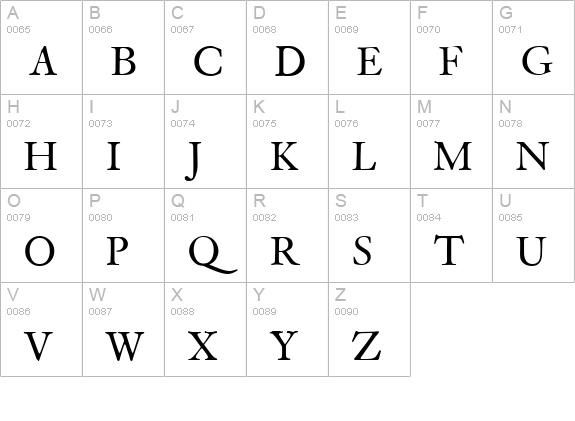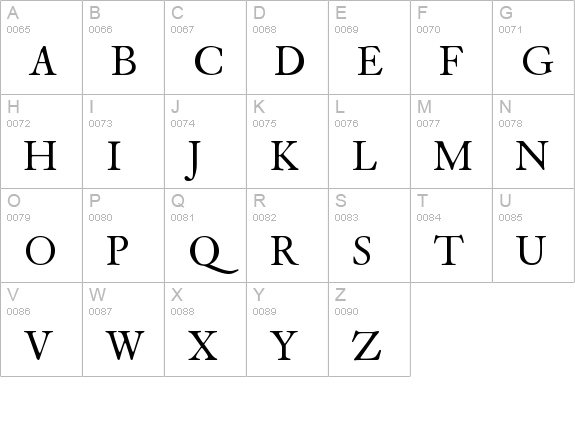
VanityBook-Regular Font Details
VanityBook-Regular is the standard, neutral variant in the VanityBook typeface family \xE2\x80\x94 well suited to general body text, paragraphs, and standard typographic work.
VanityBook-Regular font is a sophisticated and elegant typeface that exudes a sense of luxury and refinement. Its clean lines and classic proportions make it ideal for a wide range of design projects, from branding to editorial work. The timeless appeal of VanityBook-Regular font makes it a versatile choice for both print and digital applications. The best part? VanityBook-Regular font is available for free download at FontsMarket.com. This means you can add a touch of sophistication to your projects without breaking the bank. Don't miss out on this opportunity to elevate your designs with the timeless beauty of VanityBook-Regular font. Download it today and let your creativity shine!